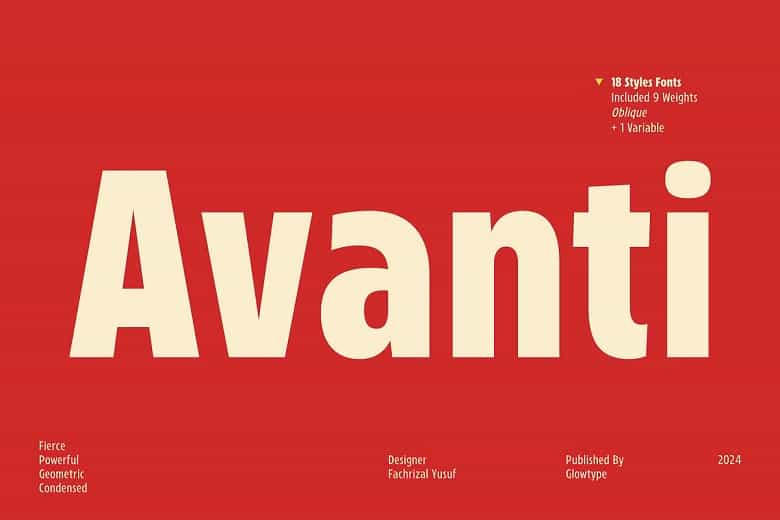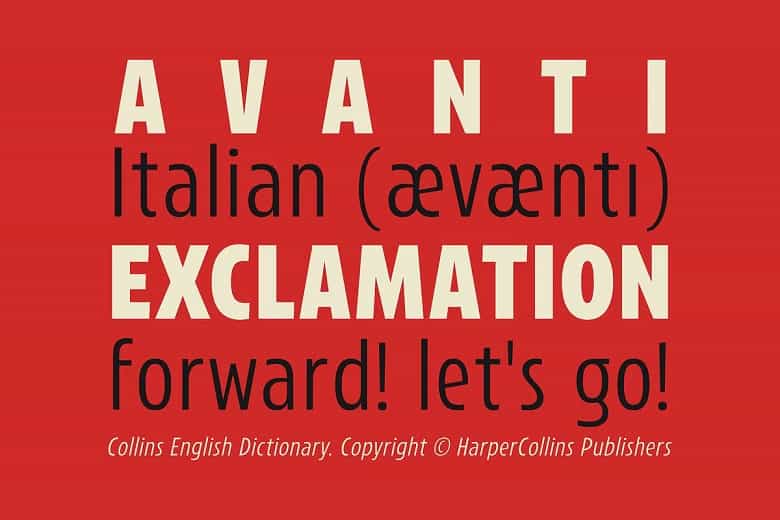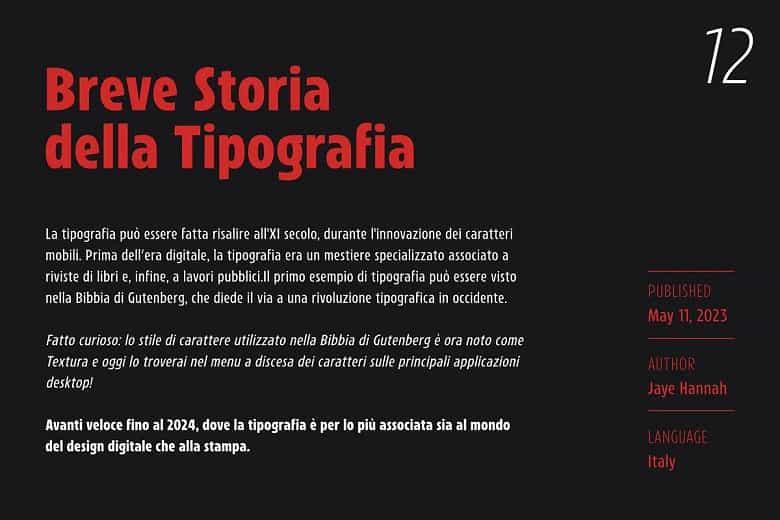
Avanti is a modern condensed sans serif font family. Avanti is Italian for forward and was chosen to make your brand and its identity look and feel strong and aggressive. This font is not only beautiful and well-designed but also rather functional – it is a delight to work with.